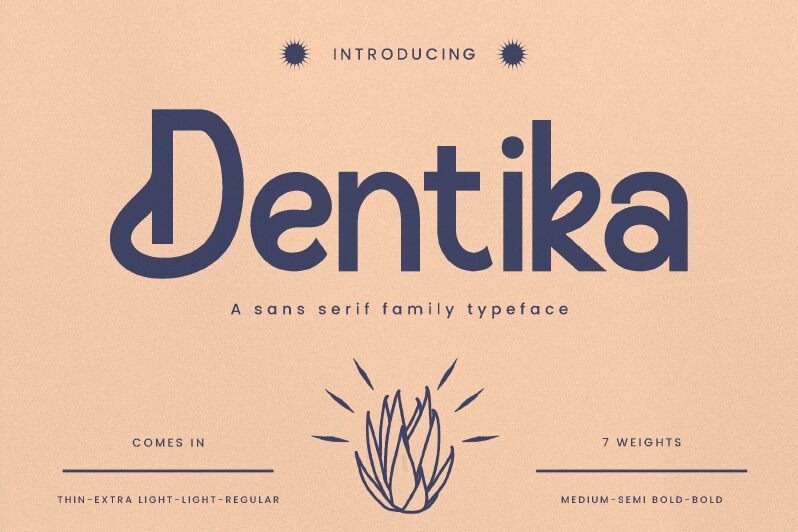
Dentika Regular
Dentika font by Achmad Yani of Flawless and Co. is a free sans serif font that feels freshly polished, like clean glass edges softened with a fingertip. Its letters are tall and airy, with slim strokes, generous counters, and quiet curves that keep the overall texture light instead of clinical. The spacing breathes just enough so word shapes look calm and composed, giving Dentika a precise yet approachable voice on the page or screen.
Using Dentika, you get a modern, hygienic clarity that shines on health and dental branding, wellness products, minimalist packaging, clean-tech interfaces, editorial layouts, and polished corporate presentations. This free font carries detail well at medium to large sizes, where its fine lines stay crisp without shouting. Pair Dentika with a simple geometric sans or a neutral grotesk for supporting text to keep the identity cohesive and refreshingly uncomplicated.